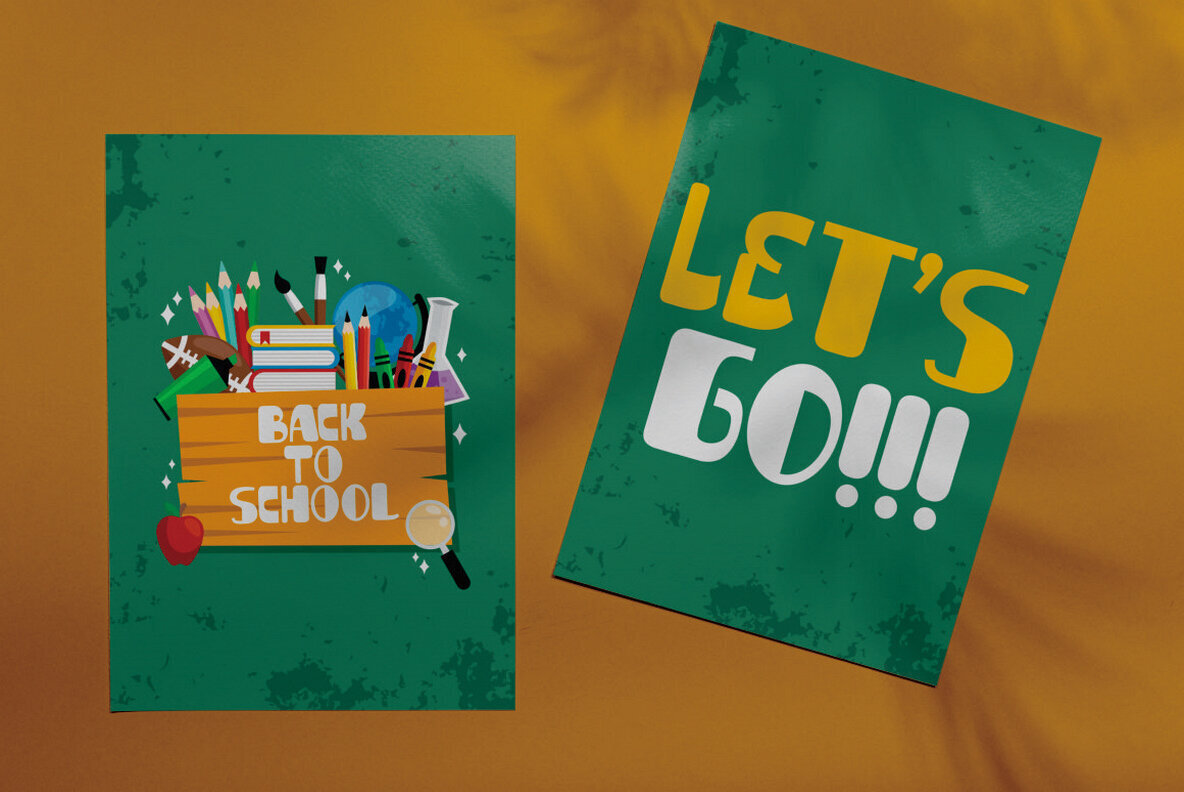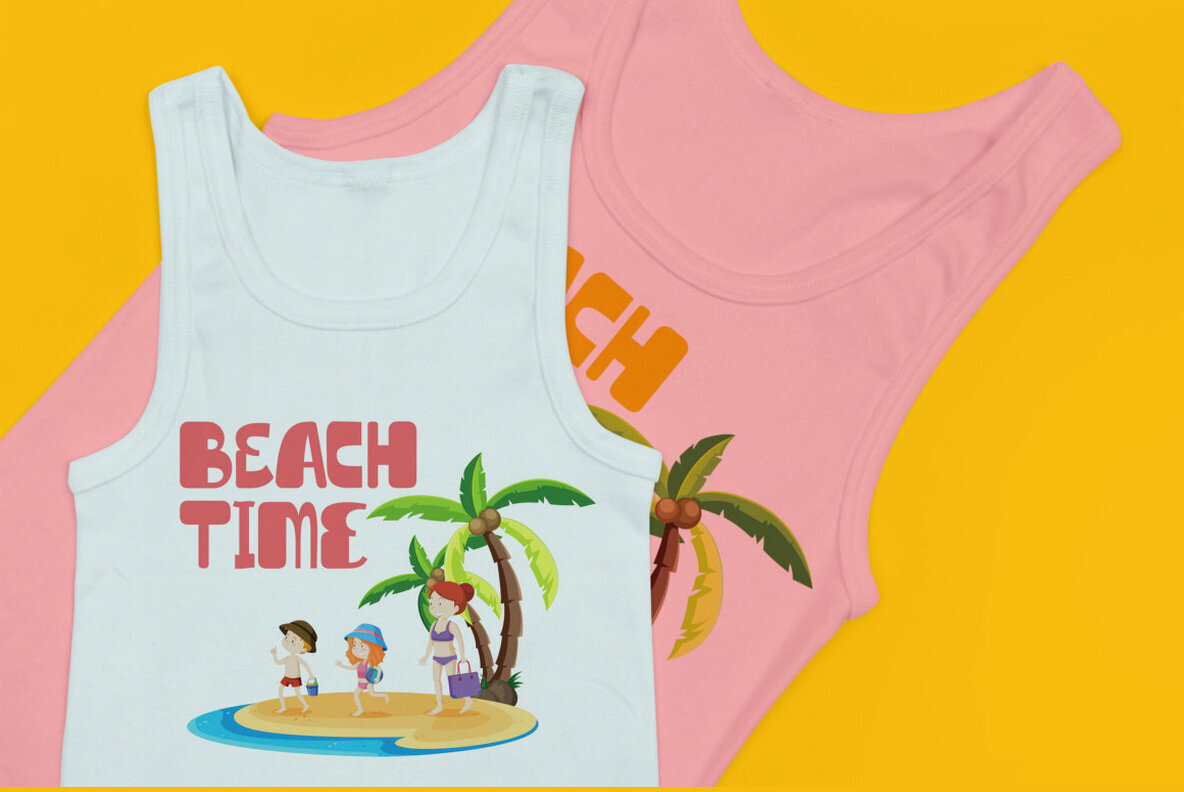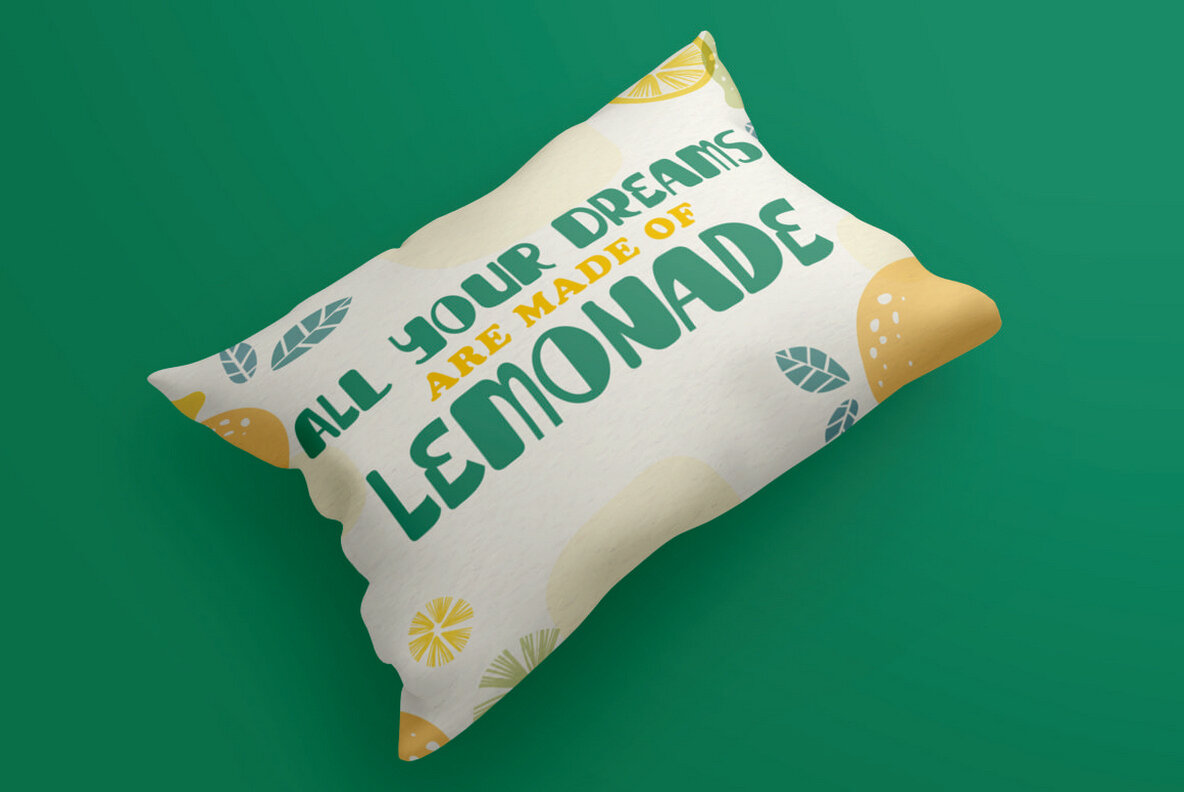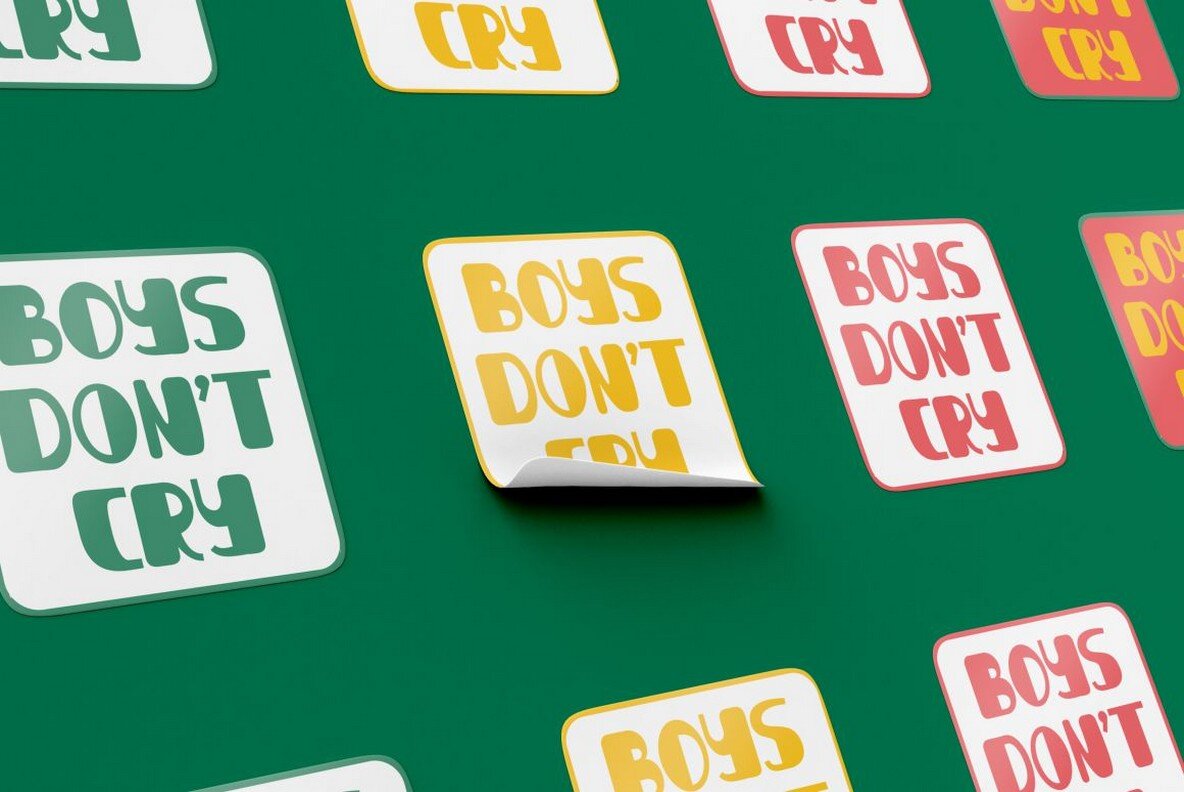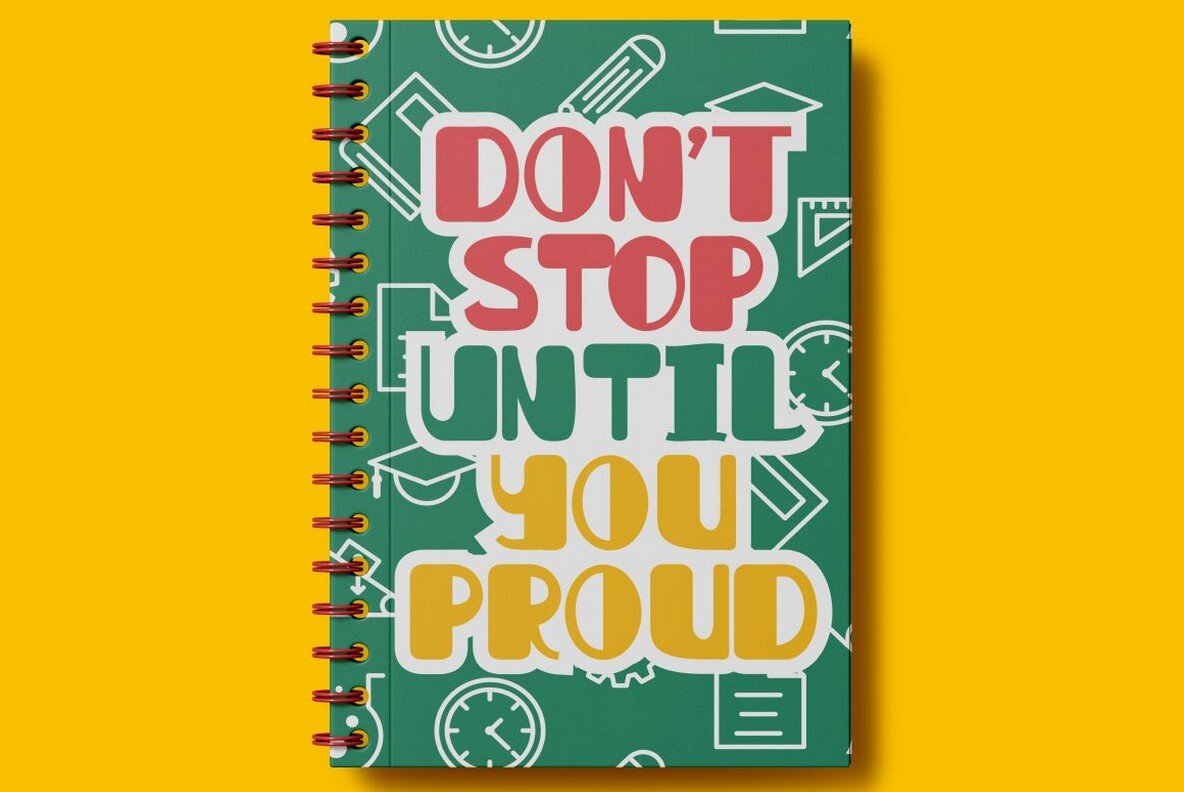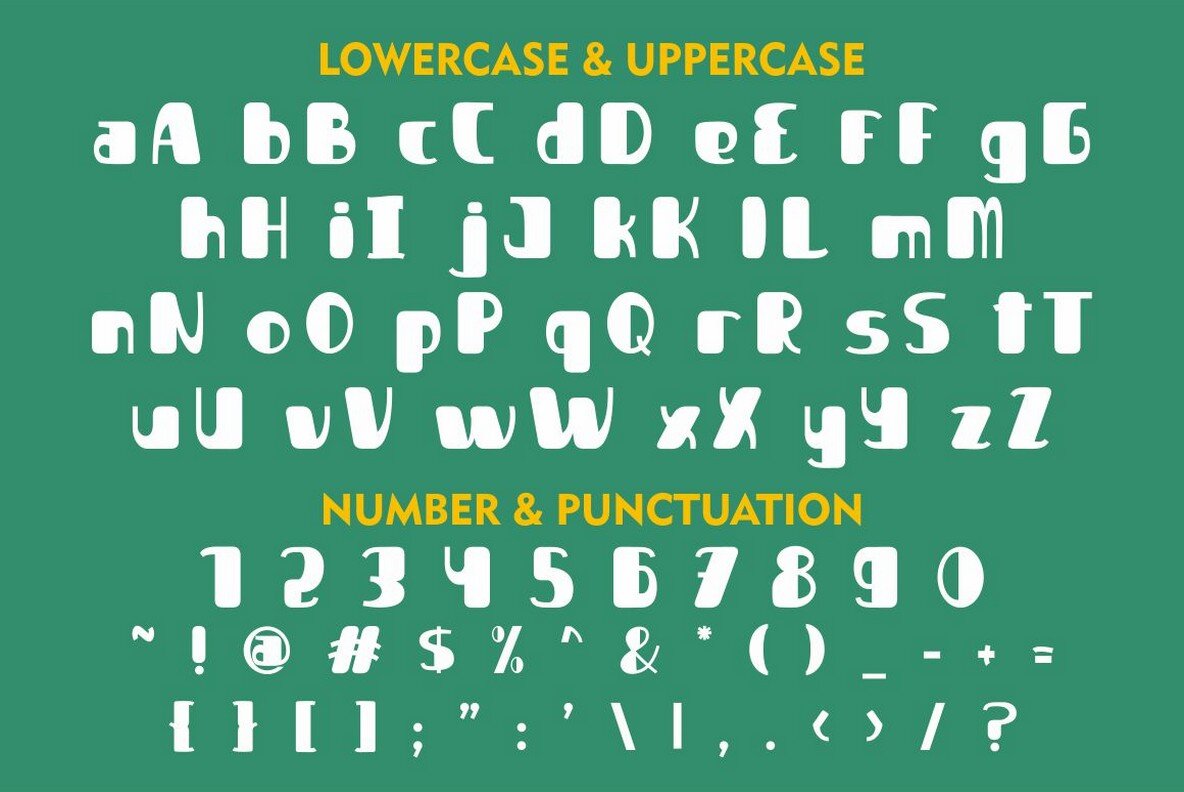
Junior Schoolboy Font
Junior Schoolboy
Junior Schoolboy - Bold Fun Display Font. Junior Schoolboy a bold, quirky display font with a fun and trendy cute characters.
With a childish style, it will be very suitable for your project, which is related to children. Such as story books, illustrations, comic books, t-shirts, posters, greeting cards, logos, branding, stickers, svg, crafting.